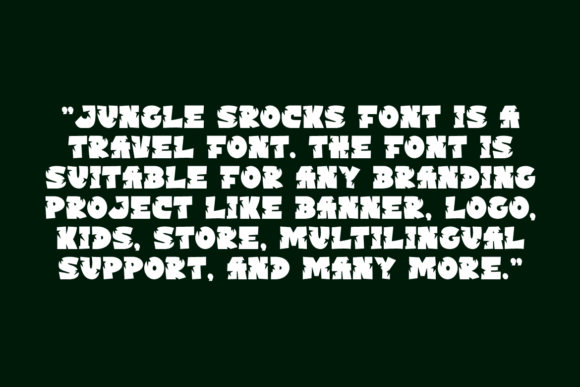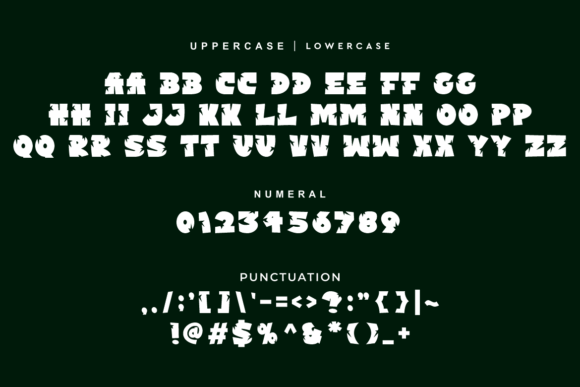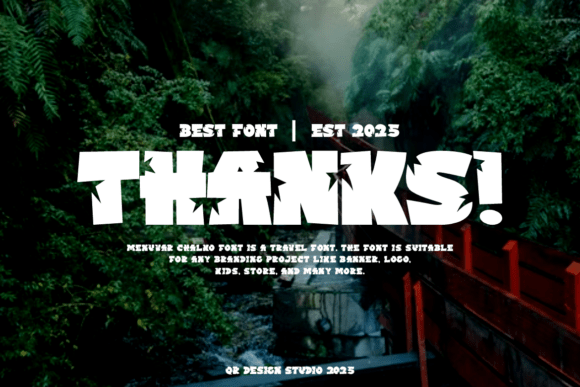
Introduction to Jungle Srocks Font
Imagine you’re deep in the jungle, surrounded by lush greenery and vibrant wildlife. The air is electric with the sounds of exotic birds and the scent of exotic flowers. Suddenly, a burst of creative energy strikes, and you’re inspired to create something bold and unforgettable. That’s exactly what the Jungle Srocks Font can help you achieve.
As a designer, you’re always on the lookout for the perfect font to elevate your creative project. With its high-quality design and free download option, the Jungle Srocks Font is an invaluable resource that can take your branding project to the next level. Whether you’re working on a sports logo or a music festival design, this font’s transparent background and unique style make it an ideal choice.
Key Features of Jungle Srocks Font
- High-quality design with intricate details and textures, ideal for creative projects
- Comes with a transparent background, allowing for seamless integration with various design elements
- Features a unique, hand-drawn style with a mix of organic and geometric elements
- Includes a range of characters, including uppercase and lowercase letters, numbers, and special characters
Honest Review: Jungle Srocks Font
I recently stumbled upon the Jungle Srocks Font while searching for a unique design resource to spice up a creative project. At first glance, I was drawn to its high-quality aesthetic and the fact that it’s available for a free download. The font’s design is quirky and fun, making it perfect for projects that require a touch of whimsy.
- ✨ The font’s transparent background allows for seamless integration with other design elements.
- ✨ The font’s unique style adds a creative touch to any project.
- ⚠️ Limited font weights and styles – it’s only available in a few variations, which may not be suitable for projects that require a more comprehensive font system.
- ⚠️ Not suitable for formal or professional projects – the font’s playful nature may not be suitable for corporate or formal designs.
Overall, I was pleasantly surprised by the Jungle Srocks Font. Its unique design and high-quality aesthetic make it a valuable resource for designers looking to add some creativity to their projects. While it may have its limitations, I would recommend it for projects that require a fun and quirky touch.
Common Use Cases for Jungle Srocks Font
The Jungle Srocks Font is perfect for a variety of design projects, including posters, flyers, and social media graphics. Its unique and creative design makes it a great resource for designers looking to add a touch of personality to their work.